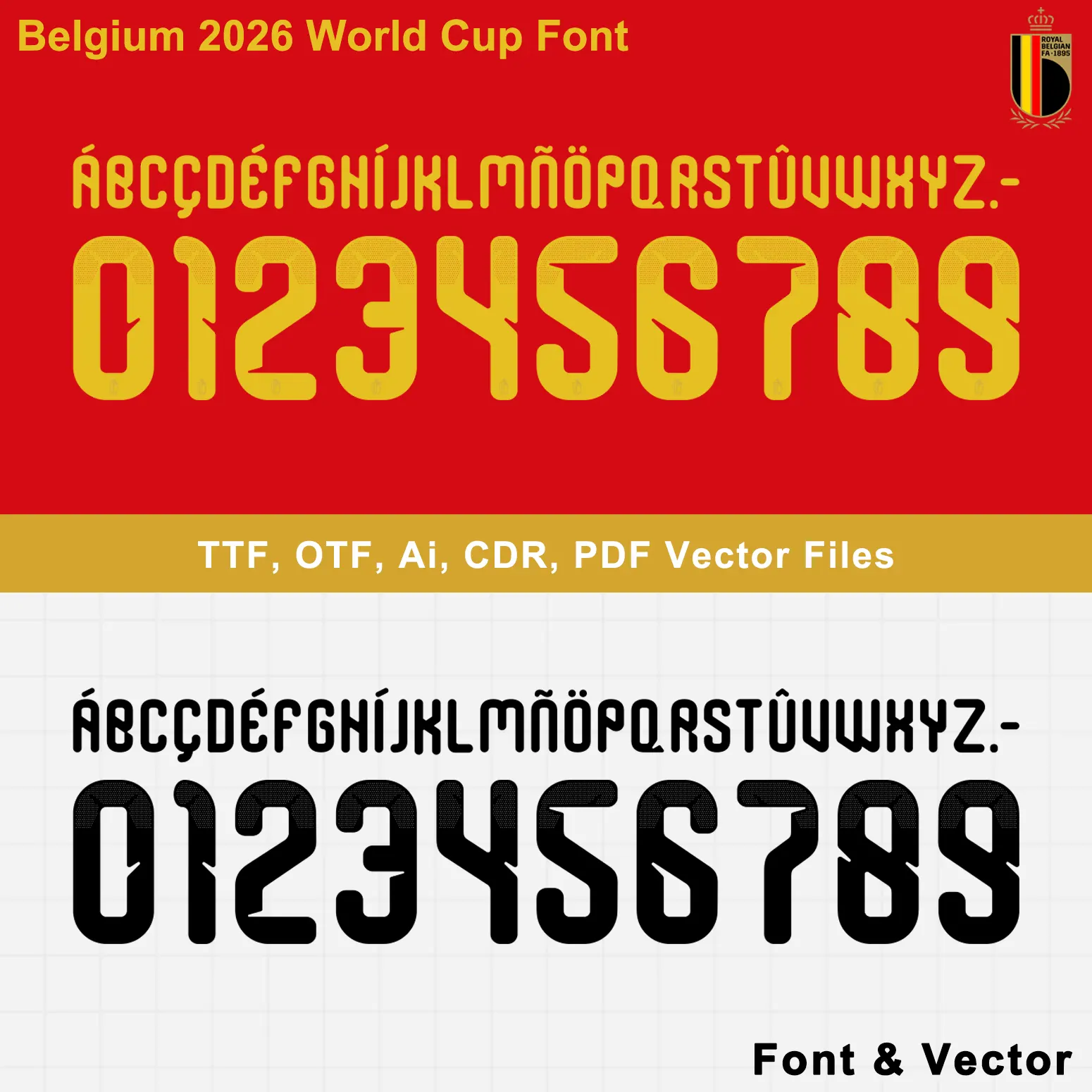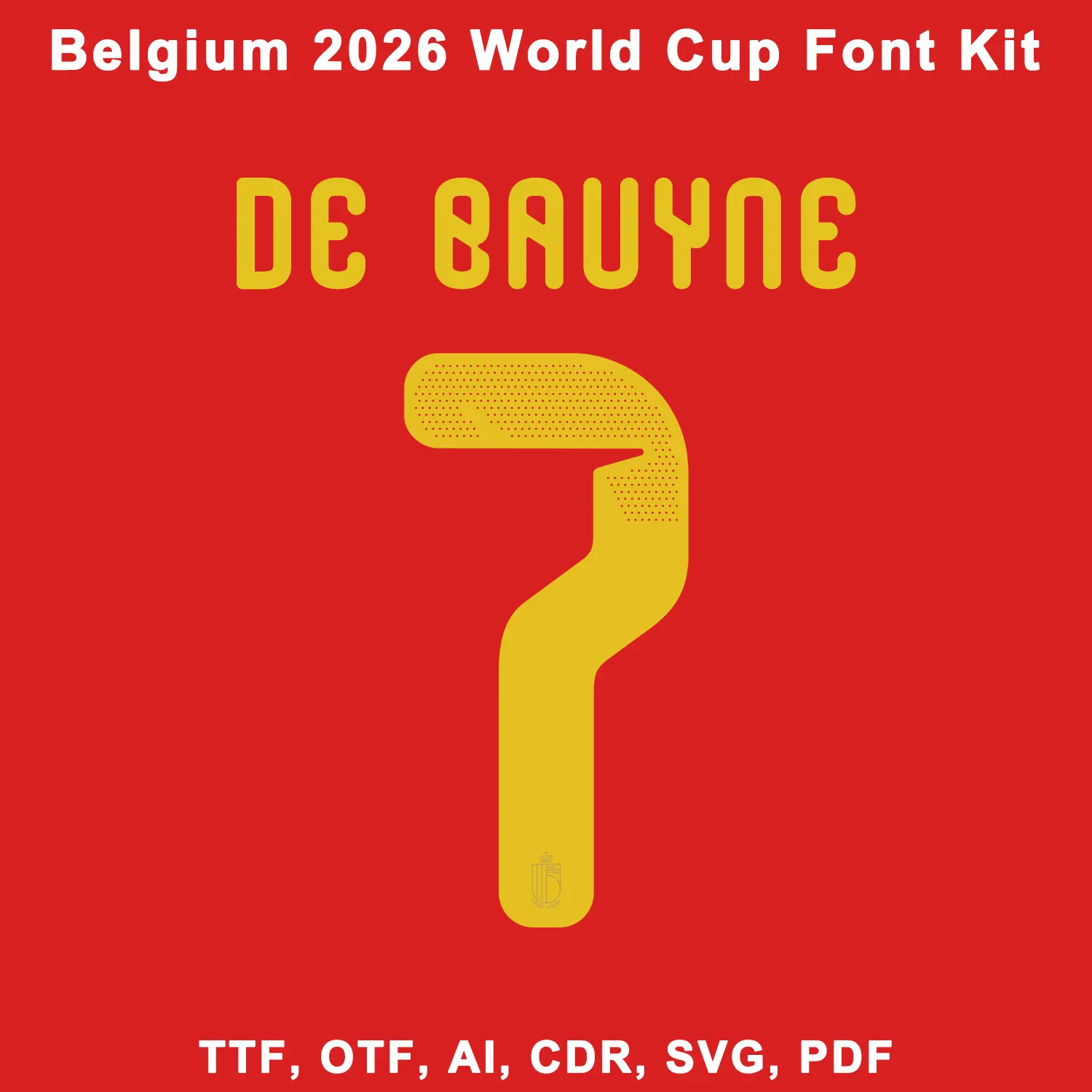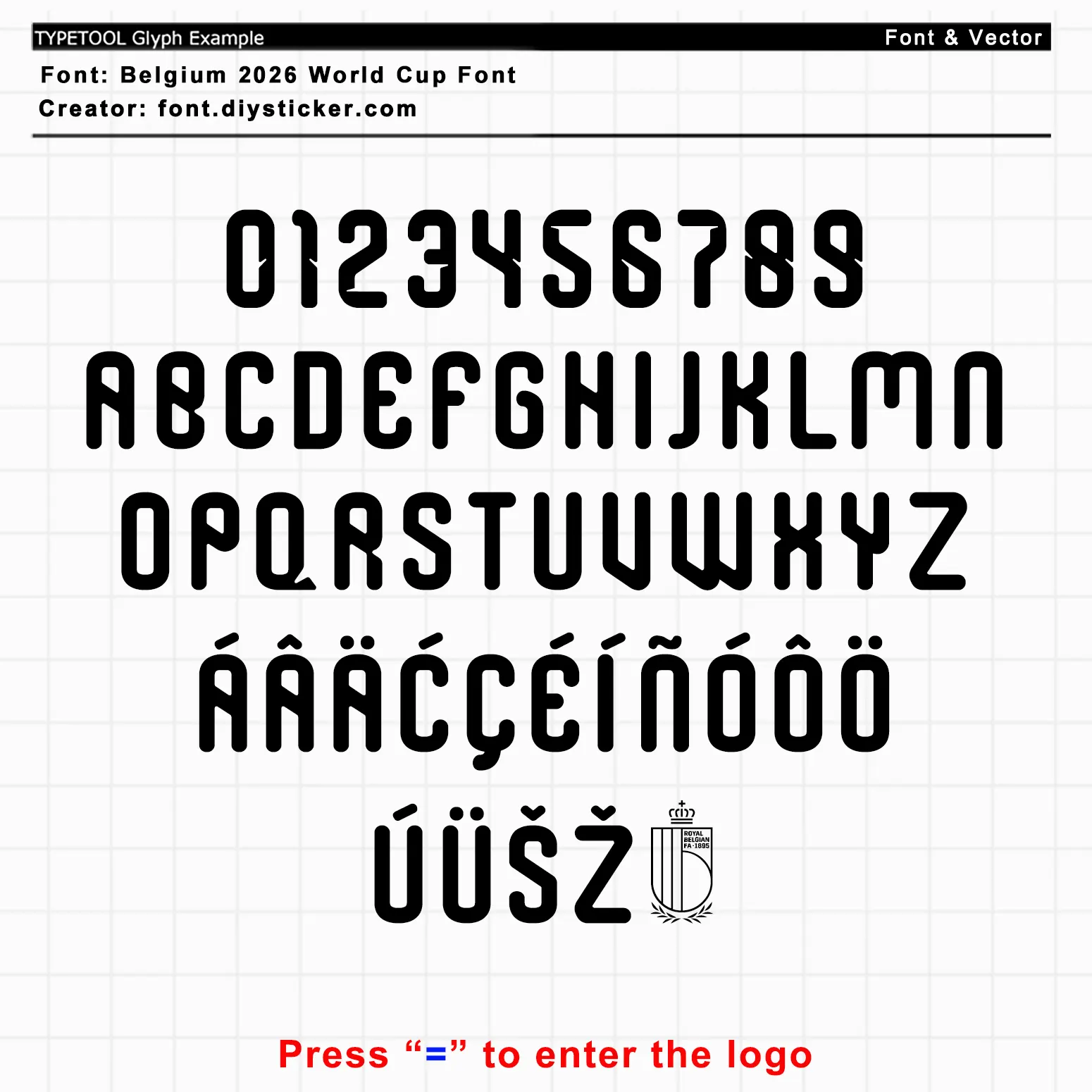
Grab the authentic Belgium 2026 World Cup Font for custom Red Devils national team jersey design and print work. This fully digital typography pack replicates the official match kit lettering, available for instant download right after checkout.
Belgium 2026 World Cup Font | Official RBFA Red Devils National Team Typography
The Belgium 2026 World Cup Font is a precise digital replica of the official jersey lettering used by the Belgium RBFA Red Devils national squad for the 2026 FIFA World Cup tournament. Crafted for print studios, kit restorers and custom apparel creators, this font features bold rounded sans-serif shapes, matte halftone dot texture inside all numerals, tiny embedded RBFA national crest marks at the base of every number, and a full set of French & Dutch diacritic accented characters to match official Belgian player names.
Whether you’re remaking vintage replica jerseys, producing fan custom kits, or preparing mass vinyl cut orders for World Cup supporters, this complete font set delivers crisp, print-ready vector characters with perfectly matched official kerning and shape proportions.